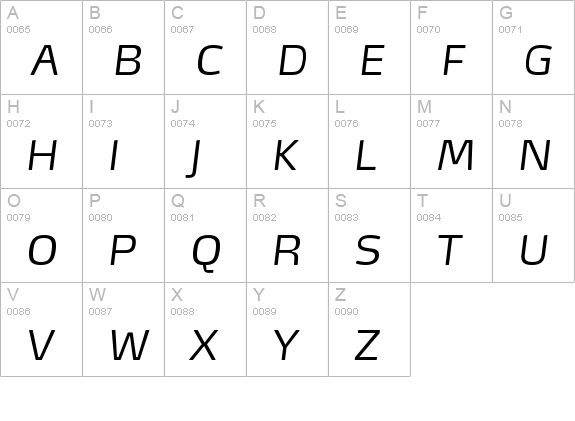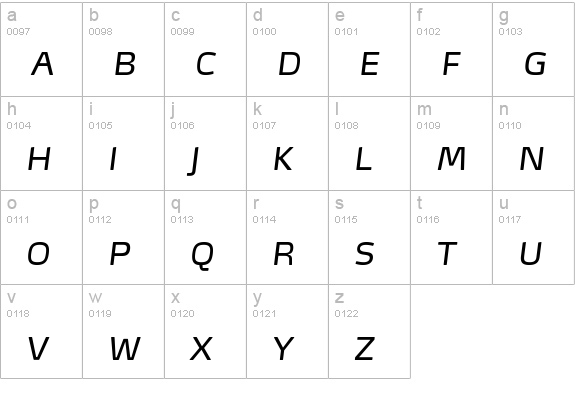
MaxLF-LightItalicSC Font Details
MaxLF-LightItalicSC is a stylish and elegant font that exudes sophistication and modernity. Its sleek italic design adds a touch of flair to any project, making it perfect for both professional and creative endeavors. The light weight of the font gives it a delicate and refined appearance, making it ideal for use in headings, titles, and other prominent text elements. Best of all, MaxLF-LightItalicSC is completely free to download at FontsMarket.com. Whether you're working on a branding project, designing a website, or creating eye-catching graphics, this font is a versatile and attractive option that will elevate your work to the next level. Don't miss out on the opportunity to enhance your designs with the elegance and charm of MaxLF-LightItalicSC – download it today and see the difference it can make!